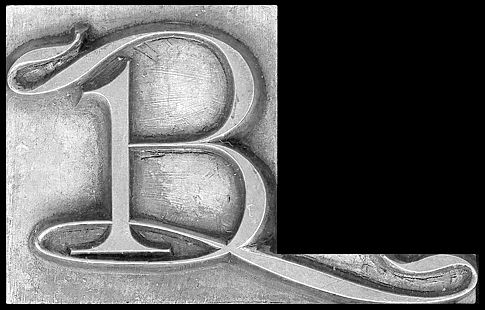
Cleveland Foundry - Koster Initials
I'm trying to track down as much information as possible about a decorative metal font called Koster Initials, apparently issued by the Cleveland Foundry in the late 19th century. Any help appreciated.
Laurens Janszoon Koster?. (koster is sacristan). there is a book "a short history of the printed word" by Warren Chappell - that talk about Koster and Gutenberg - who was the first to print etc etc. [sorry. that is for now. i just busy, and saw that today. maybe this weekend i'll have more time to find out what do i have]
> Laurens Janszoon Koster
That's the Dutch guy who supposedly invented printing before Gutenberg, right? Not that either of them were earlier than the Koreans.
But this is a 19th/20th century font.
Reminds me of Tiffany a bit. (The typeface, not you, Tiffany. :-)
Here's a better scan from a larger sample:
Both samples are from old photo display face specimen books. I've only ever seen Koster in that form.
I remember it was part of the type library at a magazine publisher I once worked for. I could never figure out why it was chosen. I think some of the people in the typesetting department had different tastes than the art directors. We thought it was kind of a joke. I don't think anyone ever used it.
I don't know where Koster came from. It could be the same one Hrant is researching, but I don't know. The photo display version was part of the VGC Photo Typositor library.
Tiffany (Ed Benguiat, 1974) was more or less based on Ronaldson Old Style (1884).
...recent trends, the return to victoriana, it might be useful though?
Ugh. I hope not. I do appreciate and enjoy old Victorian design and typography, but it's so set in its time. It's difficult to do that style without it coming off as parody or ironic or nostalgic. On the other hand, I do think the Victorian spirit is alive and well every time I see design where style and form completely upstage the message.
I don't know, that Victorian style seems to always be around in some form or another. In the sixties, it seemed to be equated with comedy, probably a reference to Vaudeville. Then there was the whole (ironic) counterculture/rock adoption of the style (Sgt. Pepper, Rolling Stone magazine, etc.). I'm sure this sort of thing will continue to happen.
Punk Victorian. I can't wait.
Mark, interesting. "Your" Koster seems to be a tamed (yes!) version of "mine":
It's 72 point, and you can see the bottom 12 point span has been mortised to allow another 60 point font to start setting nestled!
BTW, I wouldn't call it Victorian, more Art Nouveau. Although it's a mix of rigidity and organicity (is that a word?), so it doesn't fit very well in any category I know.
There's a sample of Koster (the tamed version) on page 204 of American Wood Type, by Rob Roy Kelly. Not much info, unfortunately, except that it originally came from MacKellar, Smiths, & Jordan type foundry. Although it's in the book, it's not clear whether it was actually a wood type.
Hmm. Maybe one of these was a knock-off of the other.
> it originally came from MacKellar, Smiths, & Jordan
Not a bad lead - thanks!
Though theft and borrowing was fairly rampant among nineteenth century foundries, I doubt the Cleveland version is based on the MS&J. Bit more happening with the former. They usually don't clean up this well. Could very well be the inverse. Hate to call any of this stuff Victorian. What actually is that? I think you need to look at late eighteenth century French foundry specimen books to find the origins of many of the Anglo-American nineteenth century display faces.
The specimen Mark showed are indeed the Koster Initials as orginally designed by William J Jackson for MacKellar Smiths & Jordan. Patent design 1888.
This means that the initials you are asking about, with the Cleveland pinmark, are misidentified.
Cleveland Type Foundry went from 1875 to 1892 when they were absorbed by ATF. Several catalogs were issued during this time period.
In looking through the Bidwell book on the acquisitions of ATF I would guess, based on a showing of very similar initials from Cleveland that these are actually called the Euclid Series. But without the face in front of me I can't be sure.
Nah, this isn't organic "enough" to be art nouveau. I think I like James' term, Punk Victorian.
Although, the swashes on your version, Hrant, are more art nouveau than those from Mark.
The typeface Koster was designed and engraved by W. W. Jackson for the MacKellar, Smiths & Jordan typefoundry of Philadelphia. It was given US Design patent No. D18269 issued April 24, 1888.